Understanding condensed sans serif font trends in 2026 is essential for designers looking to create modern, clean, and impactful visuals. Typography continues to evolve, and condensed sans serif fonts are becoming increasingly popular in branding, digital design, and advertising.
These fonts are known for their narrow letterforms, which allow designers to fit more text into limited space while maintaining readability. In 2026, this style is not only practical but also highly aesthetic, making it a top choice for contemporary design.
In this article, we will explore the characteristics of condensed sans-serif fonts, recommended fonts, and tips for using them effectively.
Why Condensed Sans Serif Font Trends in 2026 Matter
Typography trends reflect how design adapts to modern needs. The rise of mobile-first design, minimalism, and bold branding has made condensed fonts more relevant than ever.
Using condensed sans-serif font trends in 2026 helps designers:
- Maximize limited design space
- Create a strong visual hierarchy
- Achieve a modern and professional look
- Improve readability on digital platforms
Because of their versatility, these fonts are widely used in websites, posters, UI design, and social media content.
Characteristics of Condensed Sans Serif Font
Condensed sans-serif fonts have distinct features that make them unique and functional.
1. Narrow Letterforms
These fonts have reduced width, allowing more characters to fit in a single line without shrinking font size.
2. Clean and Minimal Style
As part of the sans serif family, they lack decorative strokes, resulting in a modern, clean appearance.
3. Strong Vertical Emphasis
Condensed fonts often appear taller and more structured, creating a strong visual impact.
4. High Readability in Headlines
They are especially effective for titles, banners, and headlines where space efficiency is important.
Key Condensed Sans Serif Font Trends in 2026
Several trends define how condensed fonts are used in modern design.
1. Bold and Impactful Headlines
Designers increasingly use condensed fonts in large, bold headlines. This creates a strong visual hierarchy and ensures that messages stand out instantly.
This trend is popular in:
- Posters
- Advertising banners
- Social media graphics
2. Minimalist Branding
Brands are moving toward simplicity. Condensed sans-serif fonts support minimalist aesthetics while still maintaining a strong identity.
They are often used in:
- Logos
- Packaging
- Corporate branding
3. Digital-First Typography
With more users consuming content on mobile devices, condensed fonts help optimize screen space. They allow designers to present more information without overcrowding the layout.
4. Experimental Layouts
Designers are combining condensed fonts with creative layouts, such as:
- Vertical text alignment
- Overlapping typography
- Mixed font weights
This creates dynamic and modern visual compositions.
Recommended Condensed Sans Serif Fonts in 2026
Here are some recommended fonts that reflect the solid sans-serif font trend in 2026.
Jacob’s
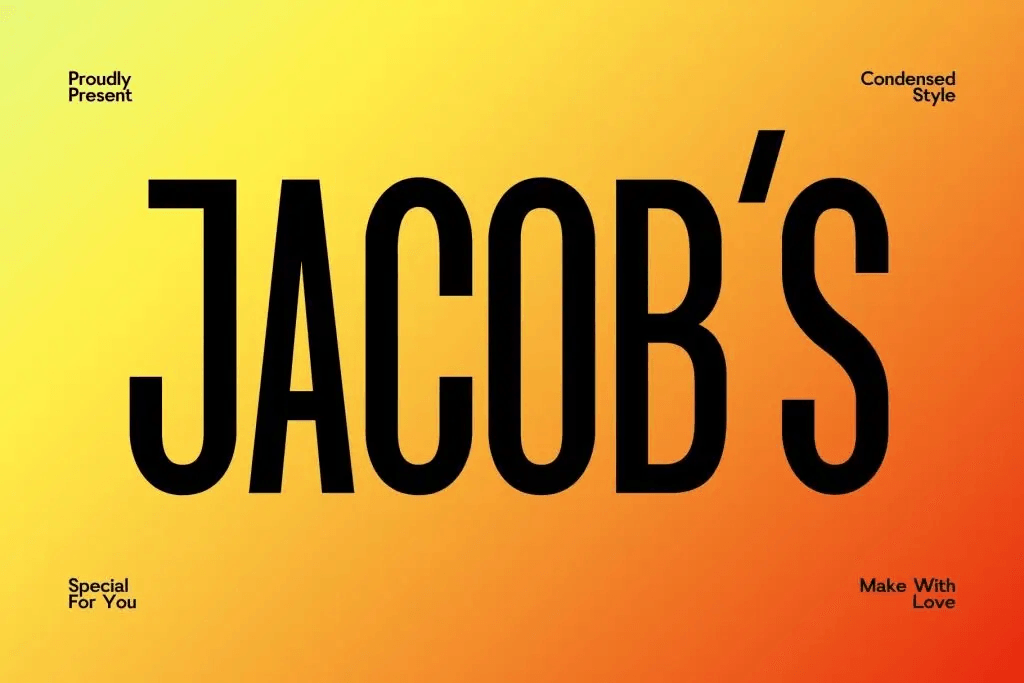
Jacob’s is a modern condensed sans serif font featuring sleek, readable letterforms.
Best for:
- Apparel
- Web designs
- Social media designs
Jacob’s works well for designers who want a timeless elegance and contemporary look.
Jochepine
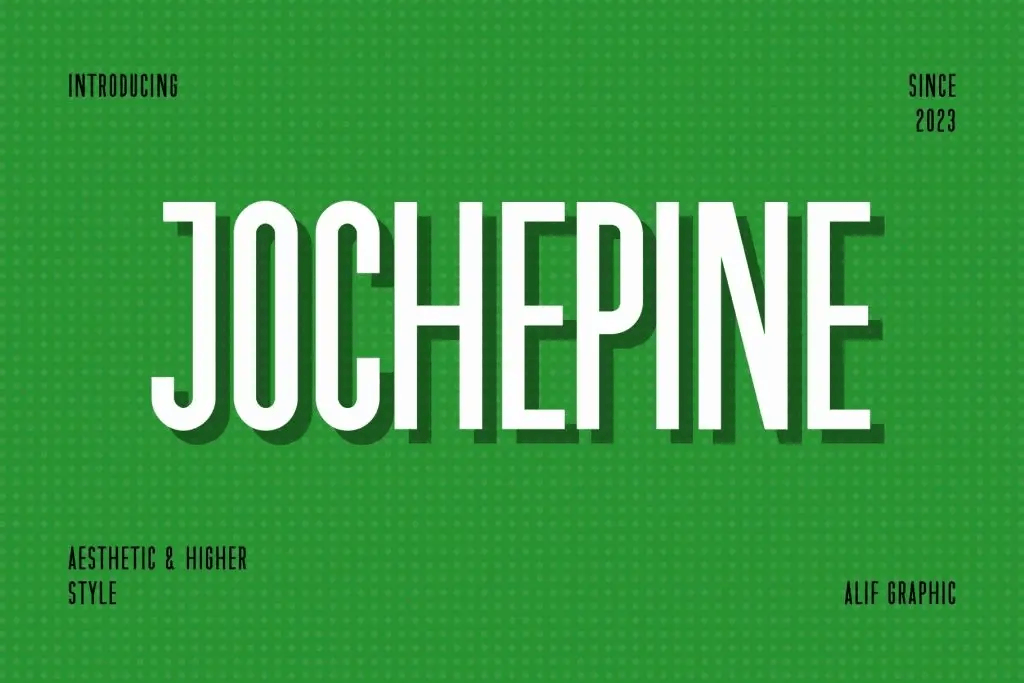
Jochepine is a modern condensed sans font with sleek, precise letterforms.
Best for:
- Advertising Campaigns
- Modern designs
- Web designs
Jochepine is perfect for projects that need both modernity and a touch of sophistication.
Conclusion
The rise of condensed sans serif font trends in 2026 reflects the growing demand for efficient, modern, and visually strong typography. These fonts offer a perfect balance between style and functionality, making them a valuable tool for designers.
From bold headlines to minimalist branding, condensed sans serif fonts continue to shape the future of graphic design. Fonts like Jacob’s and Jochepine demonstrate how this style can be both practical and aesthetically pleasing.
By understanding their characteristics and applying best practices, designers can create clean, impactful, and professional designs that stand out in today’s competitive visual landscape.